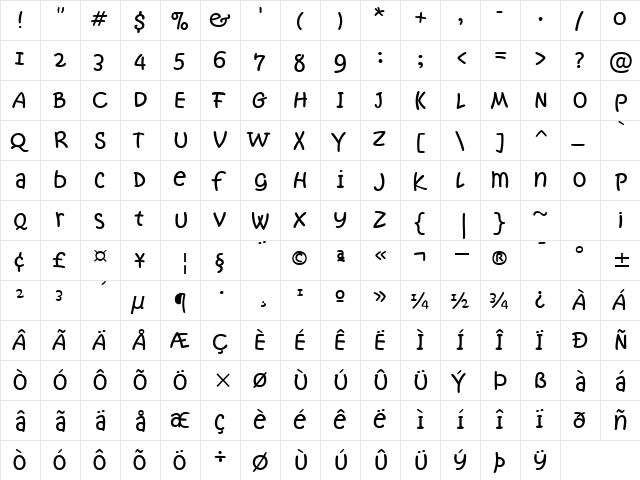
Kristen Not So Normal ITC TT Regular
Design Context for Kristen Not So Normal ITC TT Typeface
Kristen Not So Normal ITC TT is a composed and adaptable typeface that performs quietly and consistently across a wide range of design contexts.
Pro Tip: Use Kristen Not So Normal ITC TT in both headline and body roles to test its range before committing to a single application.